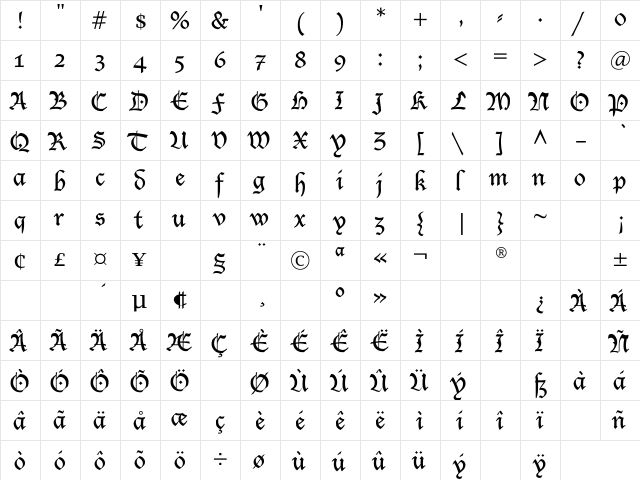
Saintgermain Black Regular Font Preview
Saintgermain Black Regular
Design Context for Saintgermain Black Typeface
Saintgermain Black is a composed and adaptable typeface that performs quietly and consistently across a wide range of design contexts.